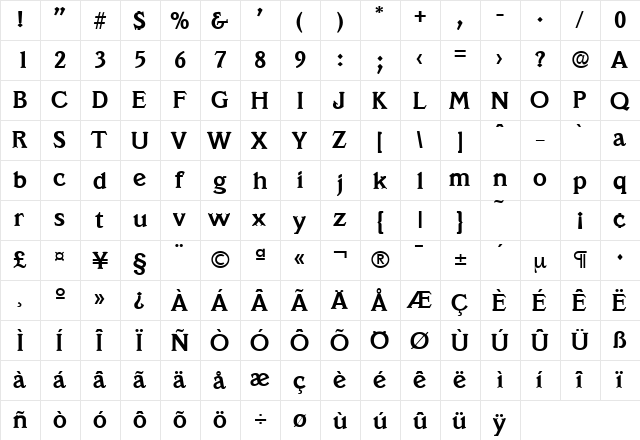
Veracruz-Serial Bold Font Preview
Veracruz-Serial Bold
Design Context for Veracruz-Serial Typeface
Veracruz-Serial is a composed and adaptable typeface that performs quietly and consistently across a wide range of design contexts. Its bold stroke weight gives it real presence on the page.